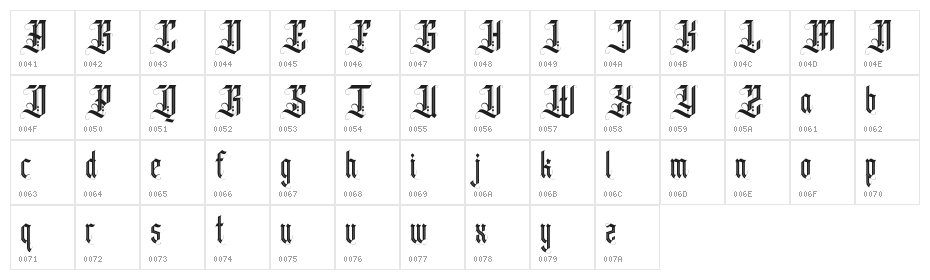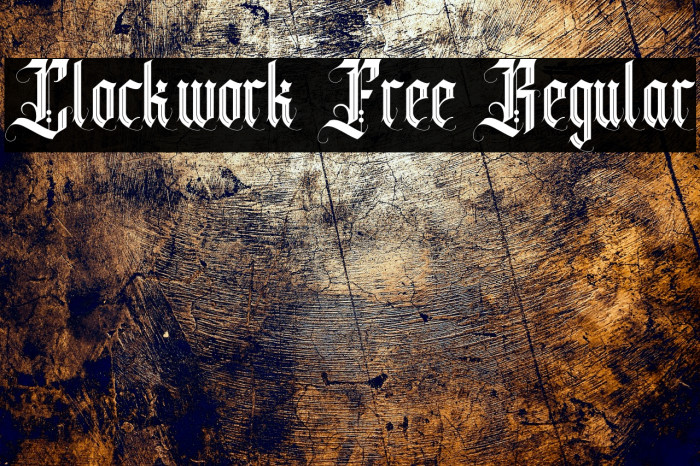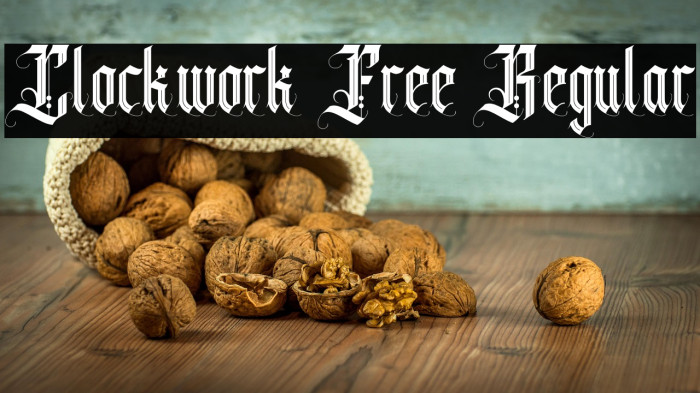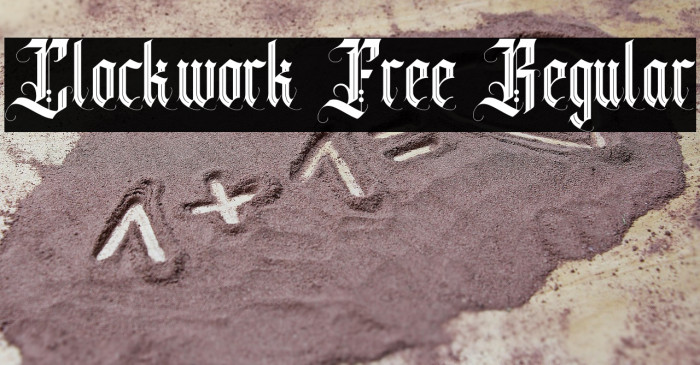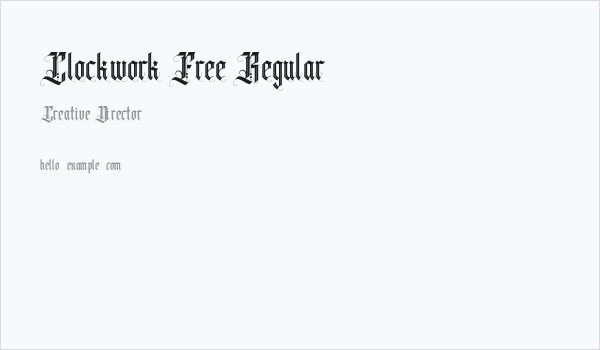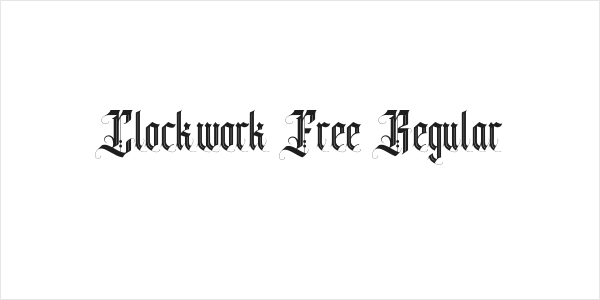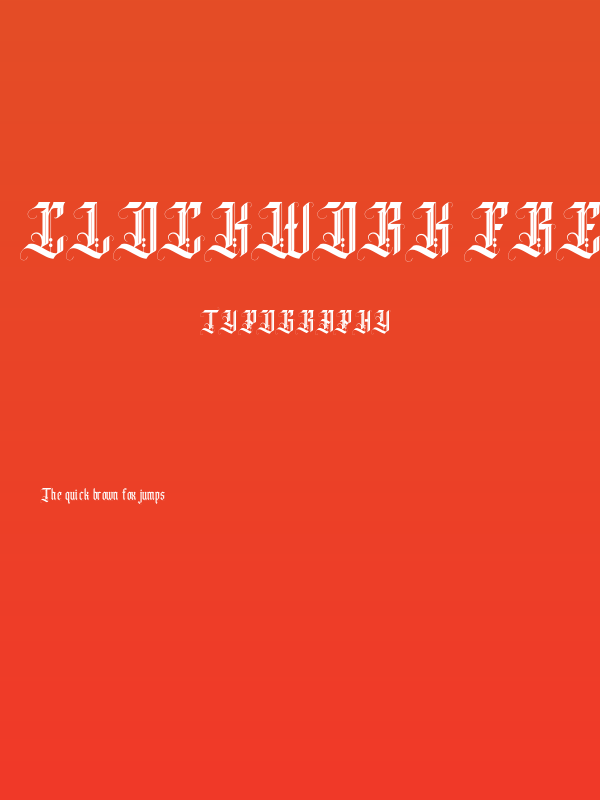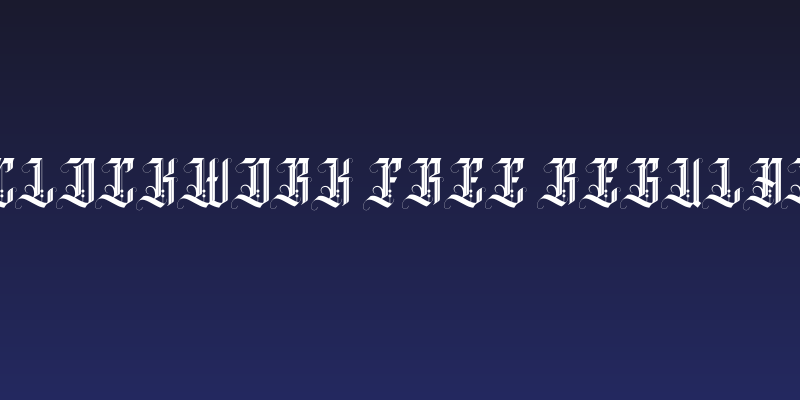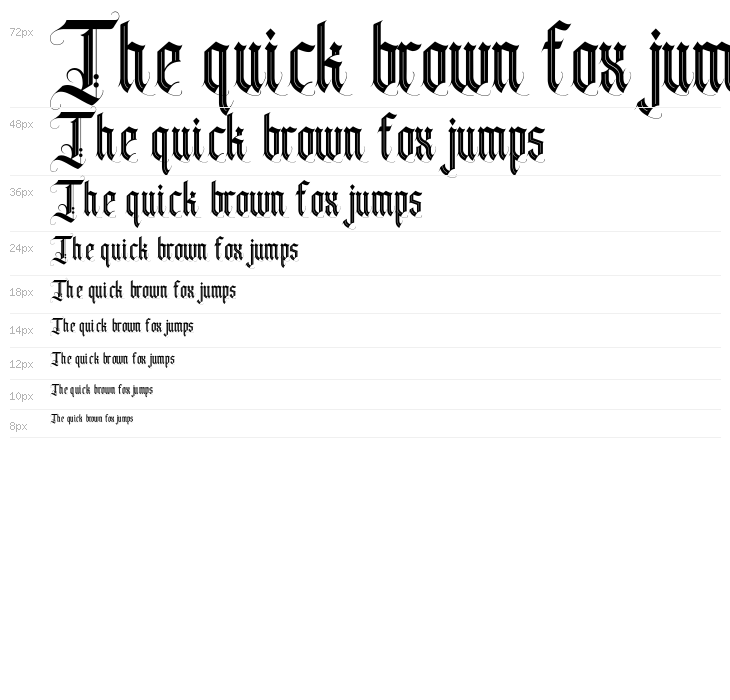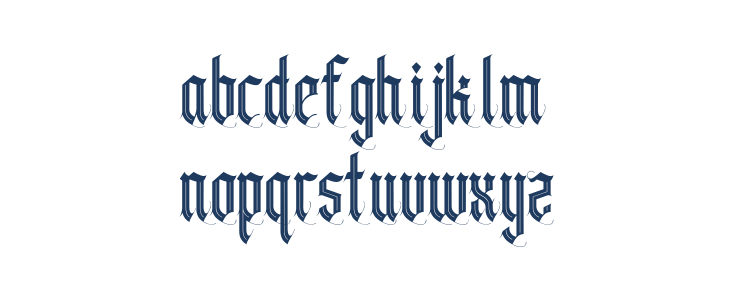
Clockwork Free Regular Font
| कंट्रास्ट | High |
| समग्र शैली | Vintage |
| उपयोग का मामला | Logos, Headlines, Decorative text |
| सुझाए गए प्रोजेक्ट | Ideal for historical documents, vintage posters, book covers, and branding that requires a gothic or medieval aesthetic. |